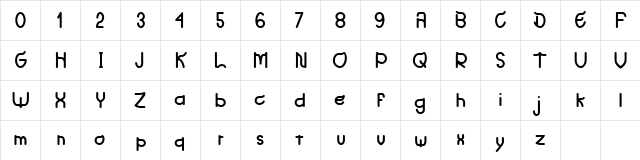
TANPAX Regular
| Designer | Raafi Hilmi |
Design Context for TANPAX Typeface
TANPAX is a composed and adaptable typeface that performs quietly and consistently across a wide range of design contexts.